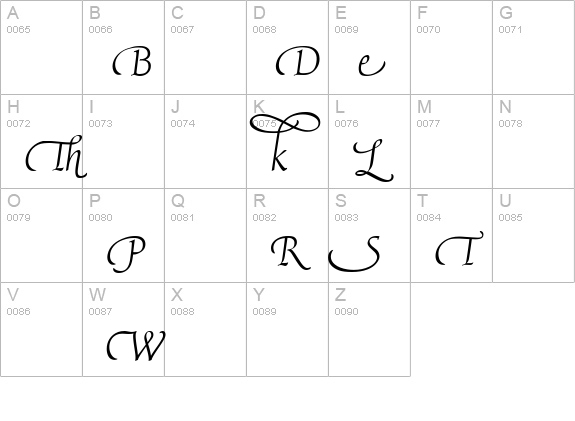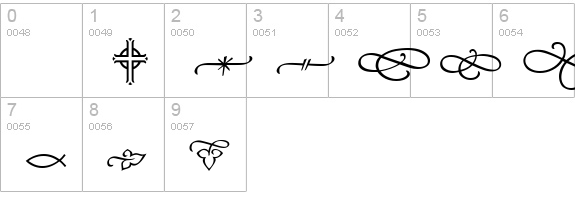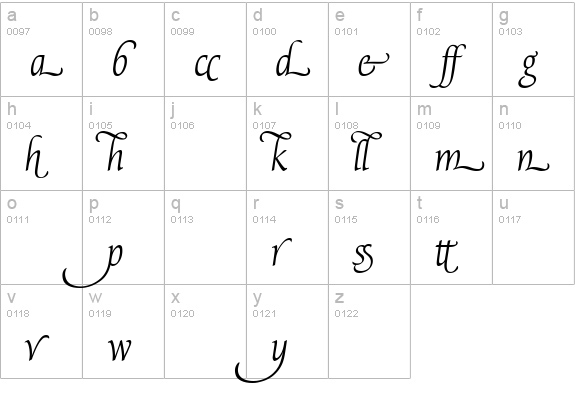
AvocetXtras Font Details
AvocetXtras font is a versatile and stylish typeface that exudes elegance and sophistication. With its clean lines and modern design, this font is perfect for a wide range of design projects, from branding to editorial layouts. What sets AvocetXtras font apart is its unique blend of classic and contemporary elements, making it both timeless and on-trend. Its sleek letterforms and subtle curves give off a sense of refinement and professionalism, making it ideal for conveying a sense of sophistication in any design. And the best part? AvocetXtras font is completely free to download at FontsMarket.com. Whether you're a seasoned designer looking to add a new font to your collection or a newcomer searching for the perfect typeface for your project, AvocetXtras font is a must-have addition to your toolkit. Get your hands on this stunning font today and elevate your designs to the next level.